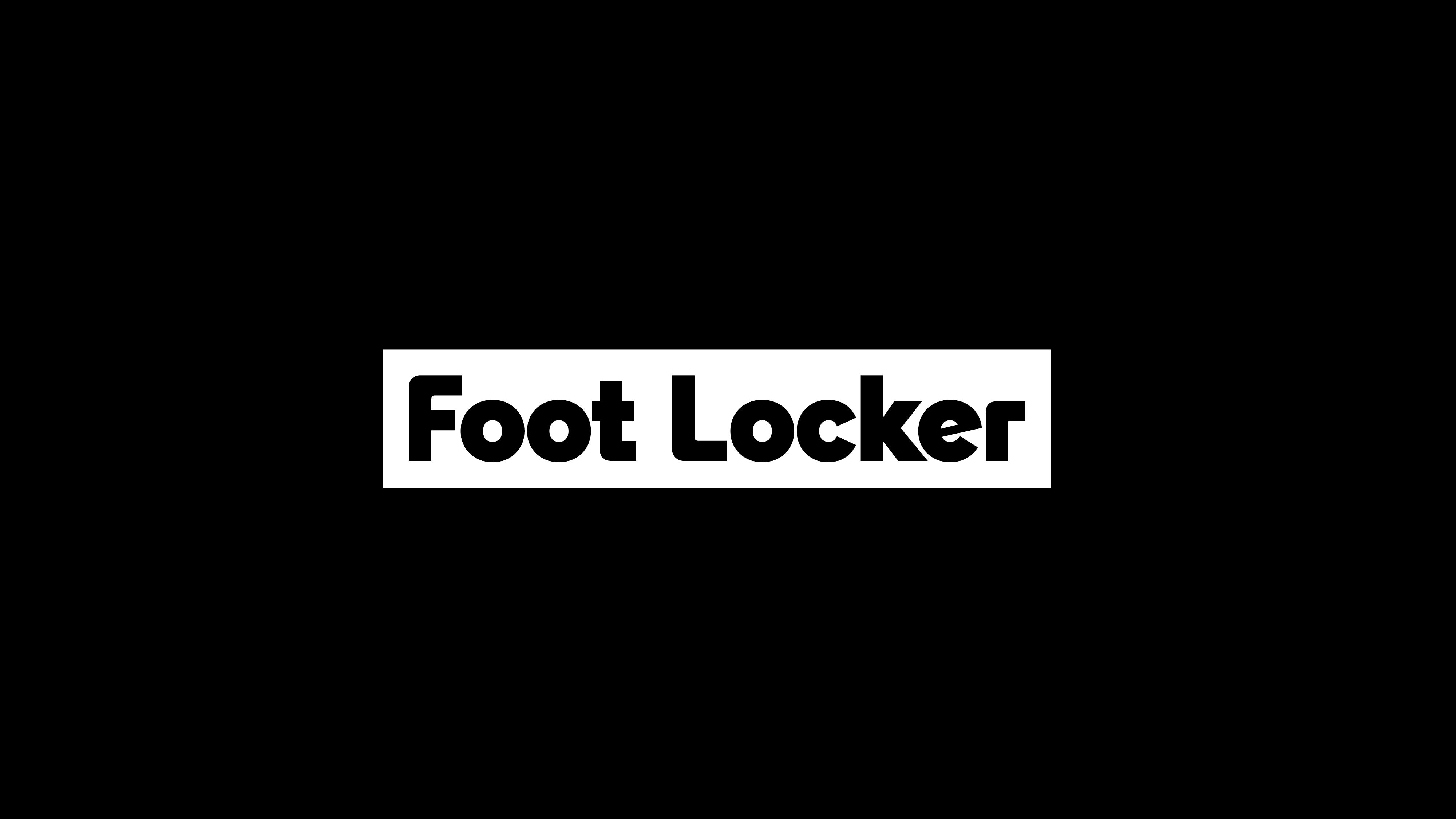
A custom font adds something unique and ownable to your brand. It’s an extremely powerful asset, sitting at the core of a brand identity and distinguishing you from your competitors.
Sky Sports
A humanist, high-impact typeface family created to unite all of Sky Sports under one typographic voice.
Chelsea FC
A suite of custom fonts for Premier League team Chelsea FC, that sets them apart from the usual macho footballing look.
MotoGP™
A new custom font, along with a specially modified version of F37 Qbik, for the rebrand of MotoGP™, the world’s top motorcycle championship.
Tottenham Hotspur
An intense, modern and variable family of typefaces built from the DNA of Tottenham Hotspur’s much-loved previous font, TH Caps.
The way you present your messages typographically becomes a part of who you are and how you connect to customers.
A custom brand font is deeply ingrained in a brand’s identity. It works away tirelessly and seamlessly, even when other brand assets such as colour, logo or imagery aren’t around. Brands face all kinds of challenges every day, from keeping up with the competition, to making sure their messages stay strong and aligned. Used consistently and strategically, custom brand fonts can help amplify your brand and increase its value.
EA SPORTS FC™
A pair of bespoke font families for EA SPORTS FC™, which is hailed as the interactive future of football.
Foot Locker
A bespoke font that gets to the heart and sole of the Foot Locker brand.
They separate you from your rivals, knit all your various brand elements together, and lay the foundations for you to connect with customers in an instantly recognisable way. Working closely with some of the world’s biggest brands, we design exclusive, original custom brand font families, which help them connect with their audiences every day and everywhere. We can help you express your brand values through typography that’s created to fit your look and voice perfectly.
A-Leagues
A team of footballing fonts for Australia’s combined men’s, women’s, youth and e-sports league.
British Heart Foundation
A playful, free-flowing font, which used the UK health charity’s existing logo as a starting point.